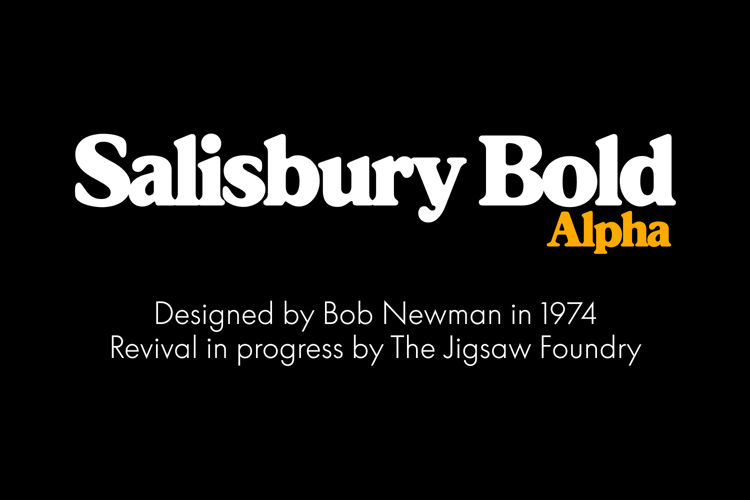
Salisbury Bold Font
Salisbury Bold is an oldstyle serif in a single bold weight, with a single story ‘g’. Seems to have been designed to fill a gap - Souvenir without the Art Nouveau flair and Windsor without the wonkiness. Never been digitized until now! On its 50th birthday no less.